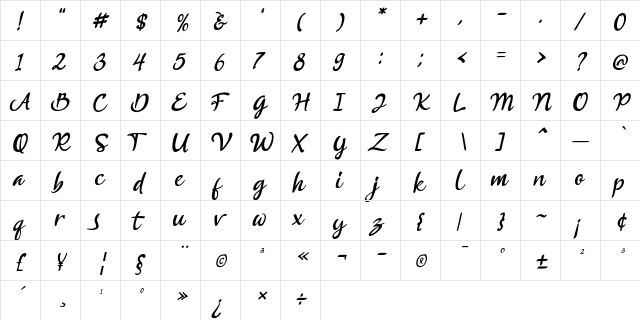
Anthurium Italic
Design Context for Anthurium Typeface
Anthurium takes a measured approach to typography — its balanced proportions and neutral character make it a reliable workhorse for both digital and print work. The dynamic lean of this cut emphasises speed and emphasis in any layout.